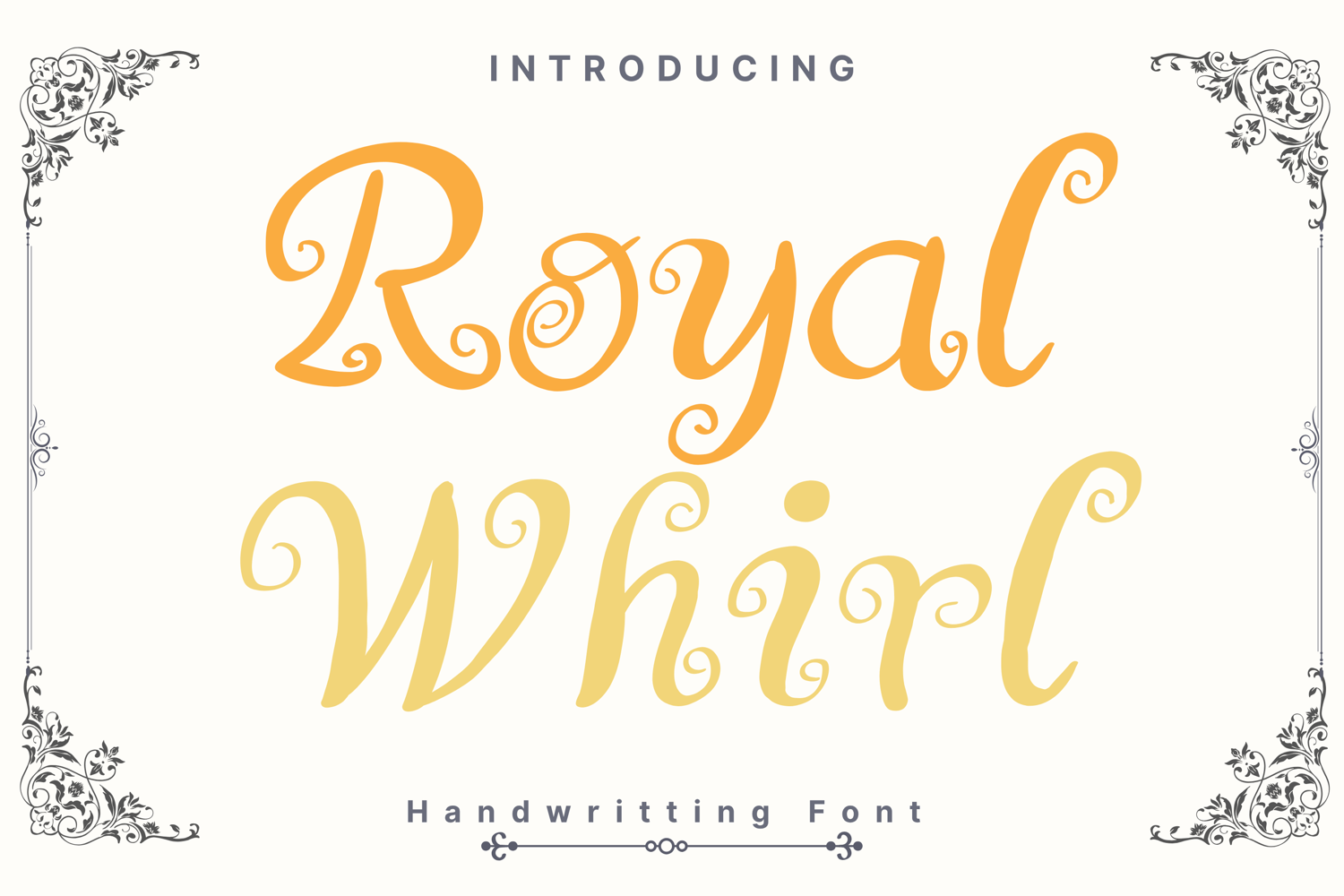
Royal Whirl Style
Royal-Whirl
Royal Whirl is an elegant handwritten font with graceful swirls and a refined flair. Inspired by vintage calligraphy and royal monograms, this font is perfect for wedding invitations, branding for luxury goods, upscale packaging, and decorative quotes. Its delicate curls bring sophistication to every design.